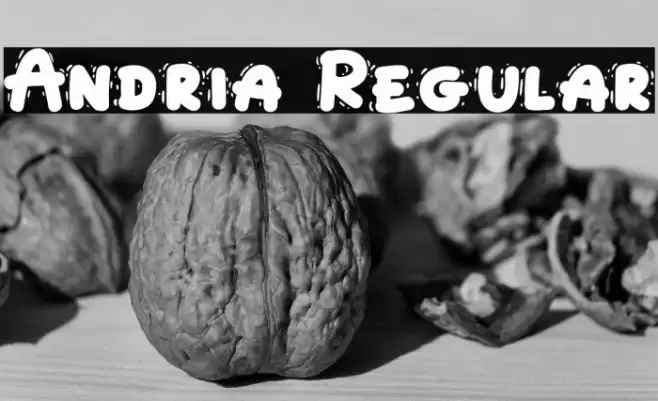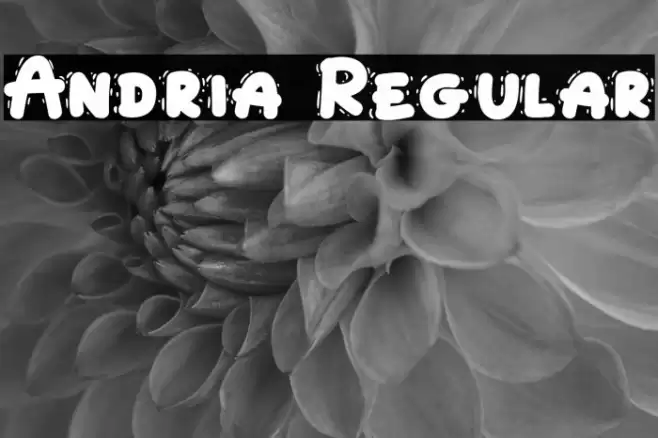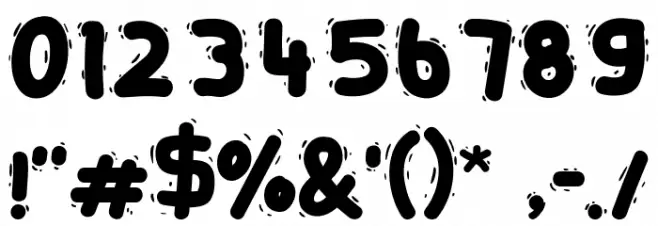
Andria Regular Font
Andria Regular Description
This font features a bold and playful style with a unique distressed texture that gives it a grunge-like appearance. The characters are rounded and thick, with irregular edges that create a dynamic and energetic feel. The uppercase and lowercase letters maintain a consistent weight, while the numbers and special characters follow the same design principles, ensuring uniformity across all glyphs. This font's distinctive look makes it stand out, adding a creative and edgy touch to any design project.
A bold, playful font with a distressed, grunge-like texture from Uncategorized fonts.
- Proposed Projects: Ideal for posters, album covers, branding, and any project requiring a bold, artistic touch.